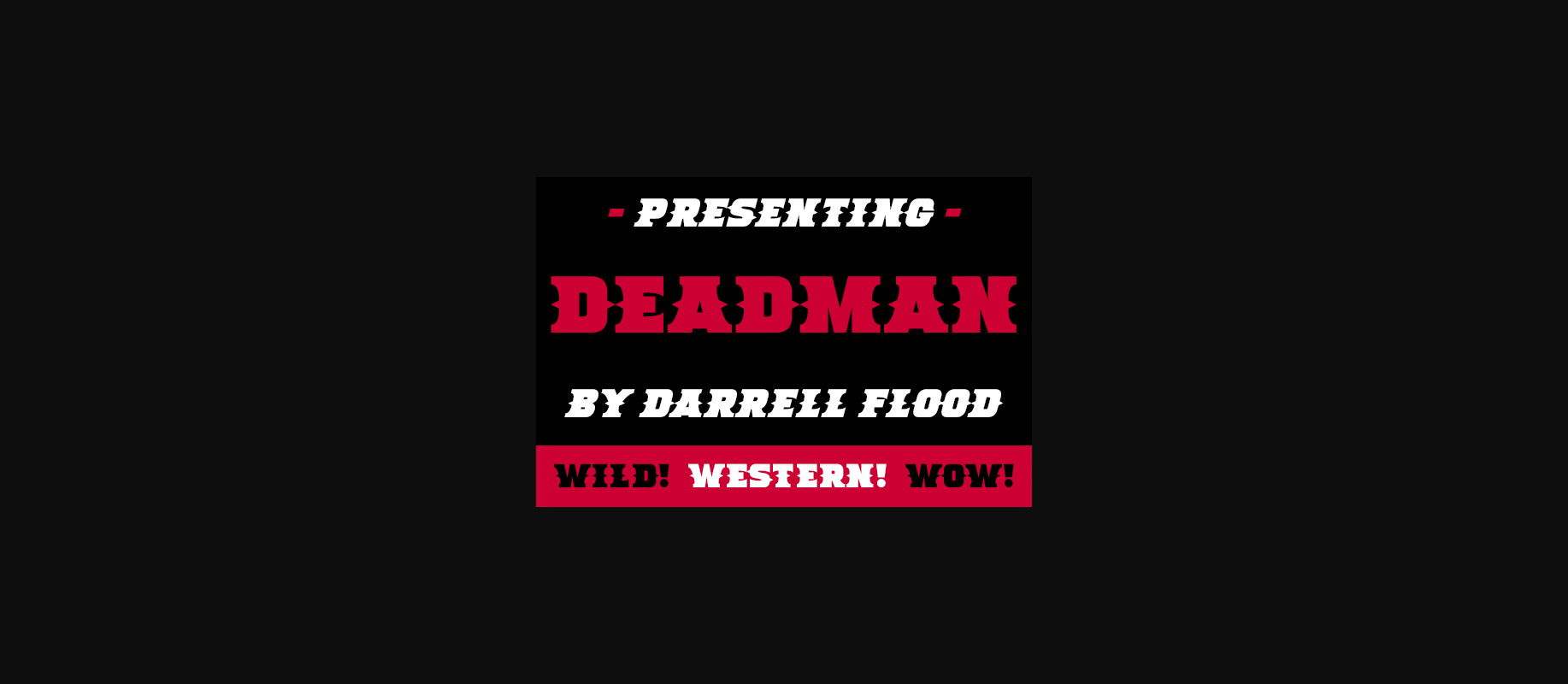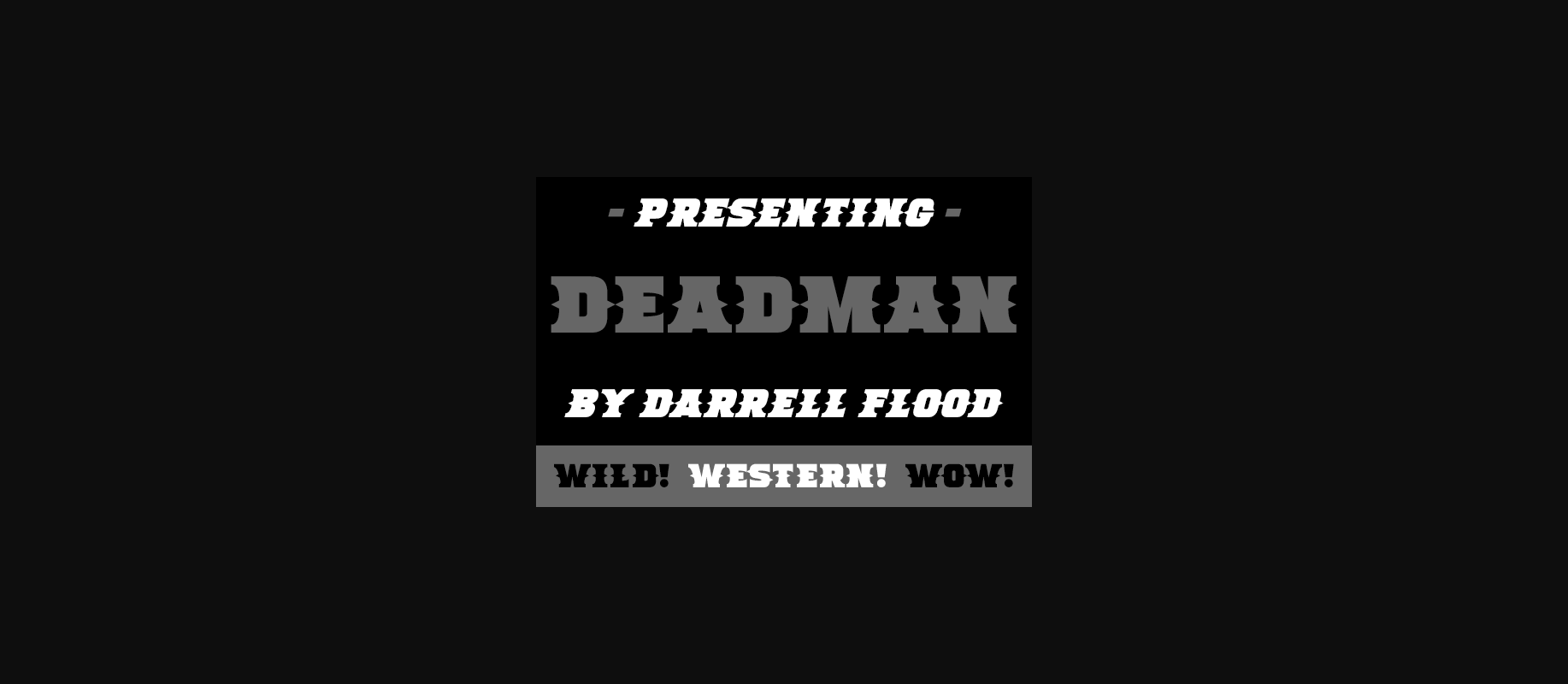
Deadman Font
About Deadman Font
Deadman is an awesome, bold, western decorative font that will fit perfectly on each of your designs.
Have fun with this beautiful font and explore its endless variations.